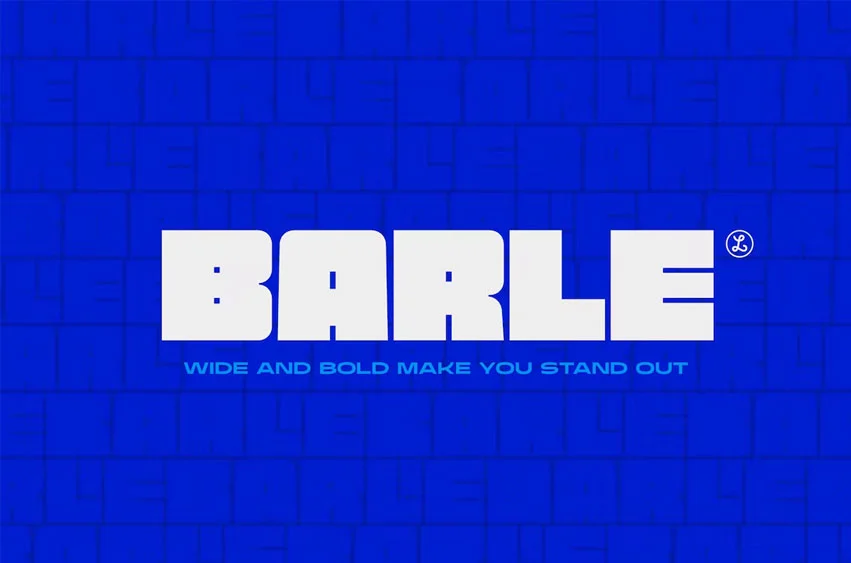
Barle Font
Barle Font is beautiful. Barle font has an extremly heavy weight and wide shape. A sans-serif display font that’s perfect for large headlines, posters, packaging and any graphic design that requires a font that will stand out to audiences.